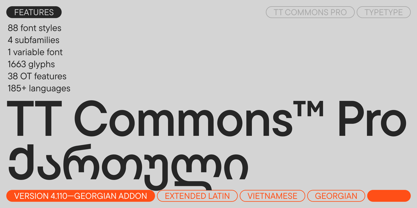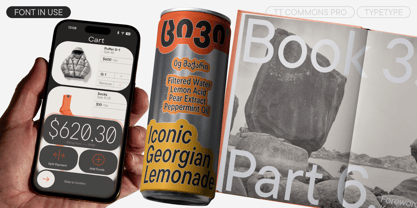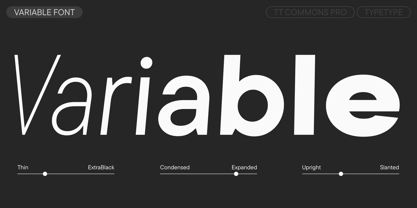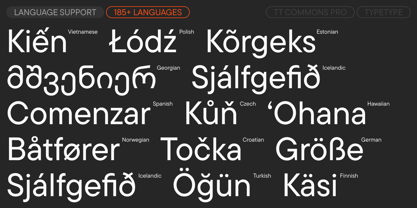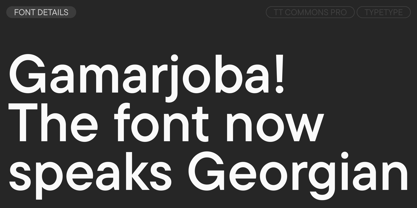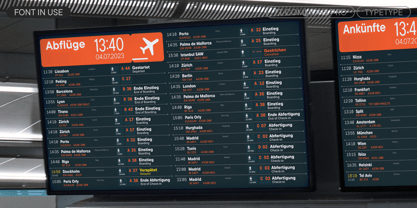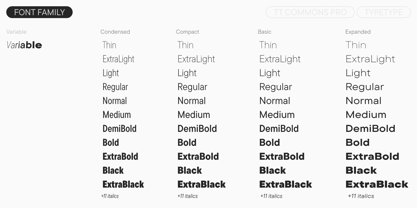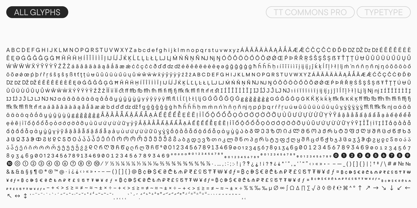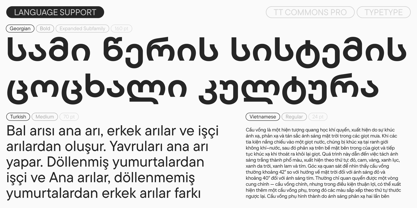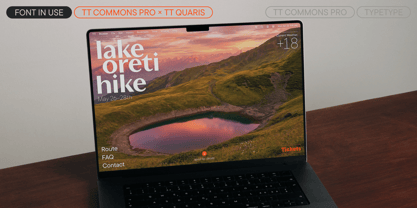
TT Commons Pro Georgian
Meet TT Commons™ Pro version 4.110—now with support for the Georgian alphabet!
TT Commons™ Pro Georgian is a language extension of the bestselling TT Commons™ Pro. TT Commons™ Pro is a geometric sans serif. It is one of our studio's most highly demanded fonts, widely recognized for its universal character, extensive character set with support for a large number of languages, and a functional set of OpenType features.
TT Commons™ Pro became a bestseller for a reason: its scope of application is not just wide, but, we dare say, limitless! Projects using this font include technology companies, clothing brands, charities, food products, and much more. If you need a basic typeface that is suitable for both everyday tasks and creating stylish designs—you have found it!
We regularly maintain the font, improving its technical foundation and expanding the character set. This time, the main update is the introduction of a font based on the Georgian alphabet. It turned out geometric, yet soft, with compact proportions. The base font styles look neutral and are perfectly suited for running text, while the bold styles truly reveal the font's character. In addition, we added a stylistic set with simplified character forms that will look striking in headlines and logos. We also added the lari and manat currency symbols in all cases. The Georgian version of TT Commons™ Pro is an excellent choice for designing trendy books and magazines, logos and packaging, web, and navigation.
The capabilities of TT Commons™ Pro are incredibly broad. The font is recommended for use in web design, apps and print, branding, and packaging design.
TT Commons™ Pro Georgian 4.110 includes:
• 5 different subfamilies: Normal with classic proportions, Condensed, Compact, Expanded, and Mono
• 104 font styles: 51 uprights, 51 italics, and 2 variable fonts
• 1663 glyphs per style (1,546 in Mono)
• 38 OpenType features
• Support for over 185 languages, including 4 based on the Georgian alphabet—Georgian, Laz, Mingrelian, and Svan
TT Commons™ Pro Georgian is the flawless foundation of your typographic wardrobe!